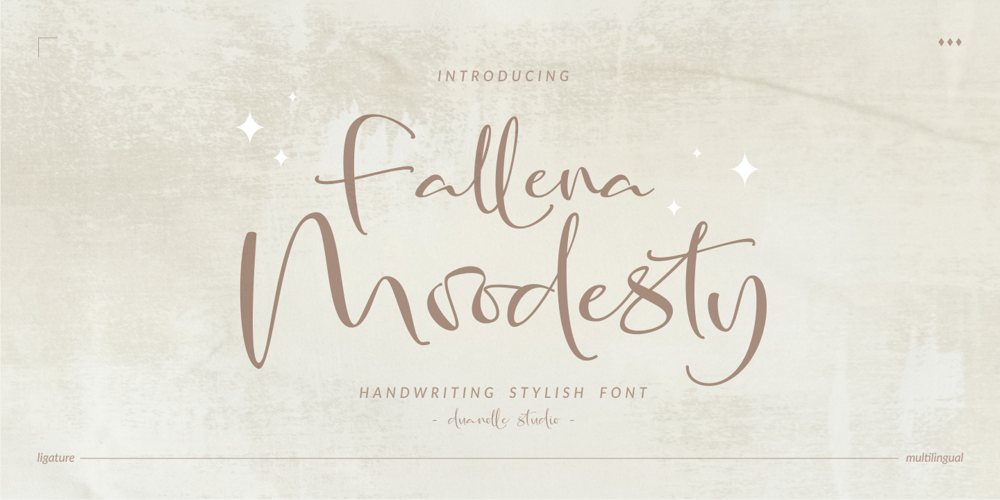
Fallena Moodesty Font Family was designed by Yuliatno – and published by Duanolle Studio. Fallena Moodesty contains 1 styles and family package options. Fallena Moodesty is a unique handwritten script font that looks elegant, modern, and stylish.Fallena Moodesty is perfect for branding projects, logos, product packaging, product design, labels, photography, watermarks, invitations, wedding designs, stationery, advertisements, social media posts and any project that requires a taste for classy handwriting.What’s Included:Standard & Multilingual glyphsLigaturePUA encodedWe highly recommend using a program that supports OpenType features and Glyphs panels like many of Adobe apps and Corel Draw, so you can see and access all Glyph variations.Hope you happy and enjoy with our font!